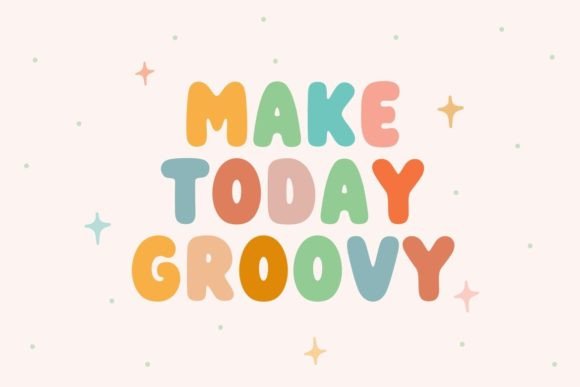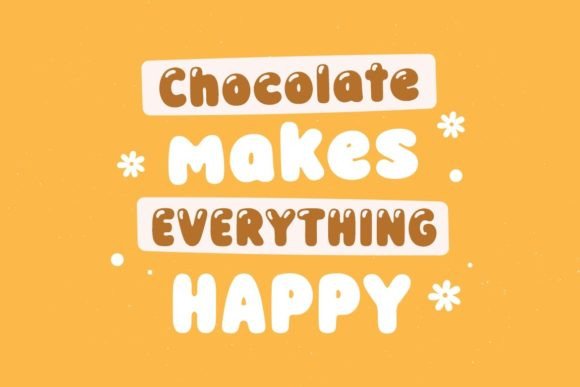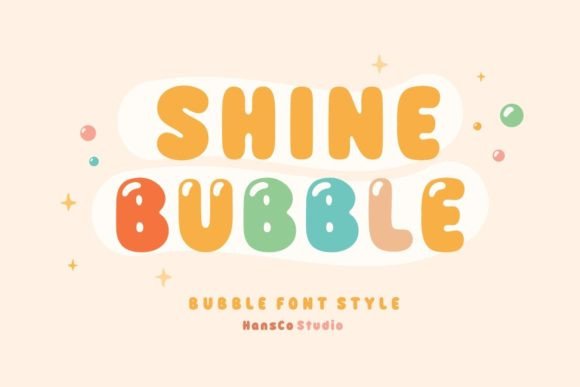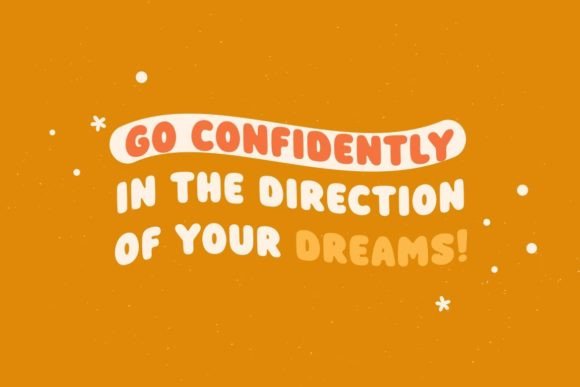
Shine Bubble Font: A Playful Display Font for Cute DIY & Cricut Projects!
About the Shine Bubble Font
Get ready to be inspired by Shine Bubble Font, a fresh and dynamic typeface for modern creators. Shine Bubble is a fun and playful display font. Cheerful, bubbly, and friendly, this font will brighten up each of your designs!
Shine Bubble Font Usage Examples